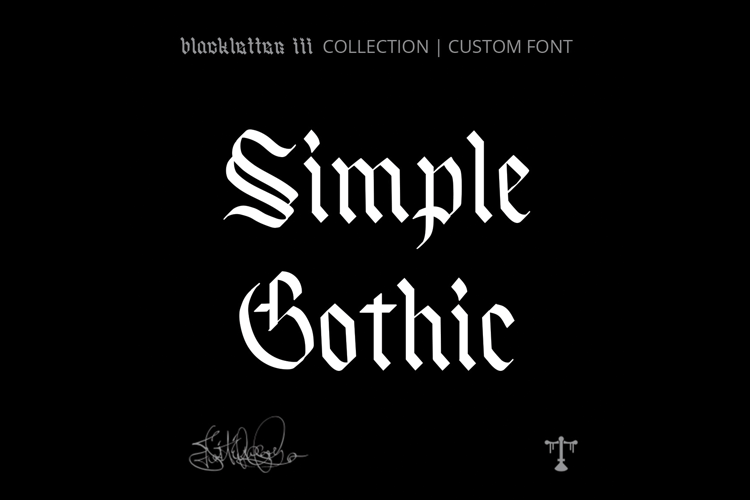
Simple Gothic Font
Simple Gothic Font is an Old English, Blackletter Font. Created in 2023 by Justified Ink.
A Simple gothic font that cuts just the right way. We keep it sharp like occams razor - which is that the simplest is often best.